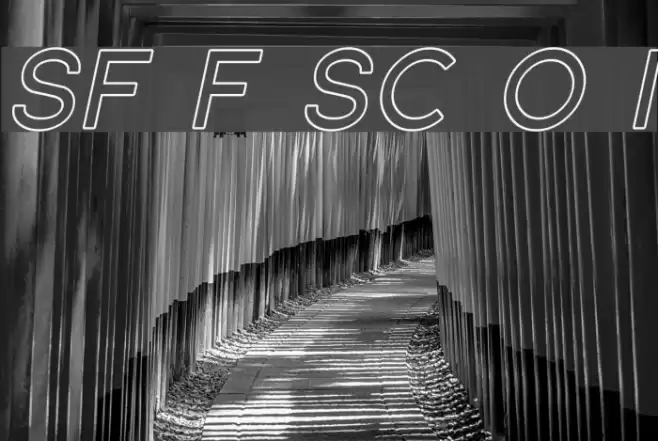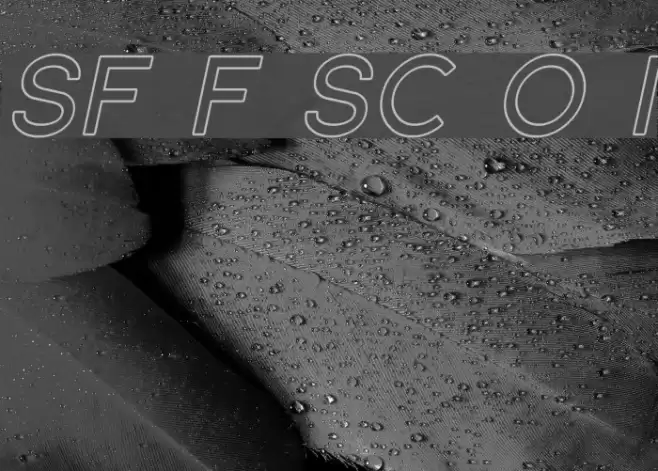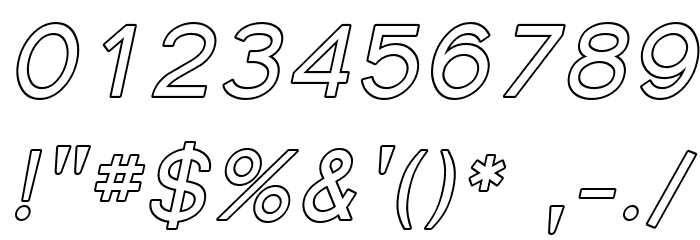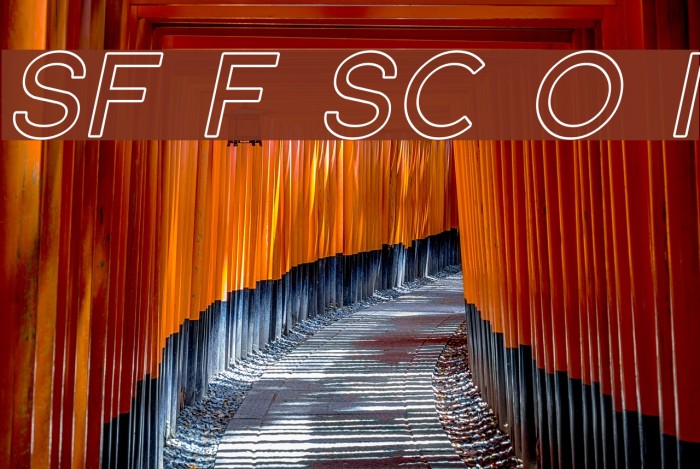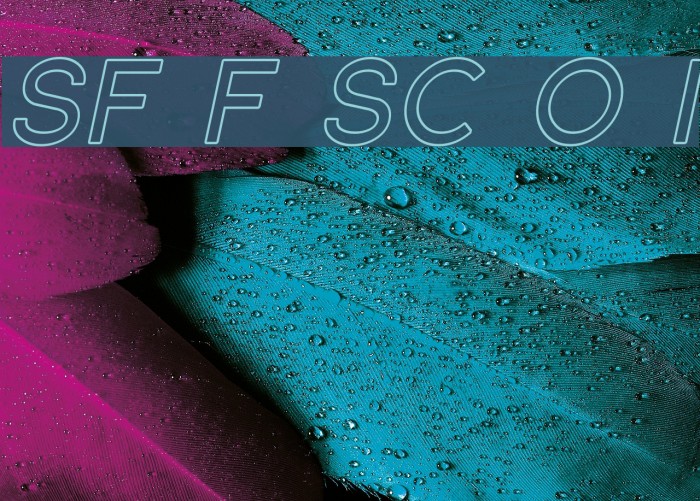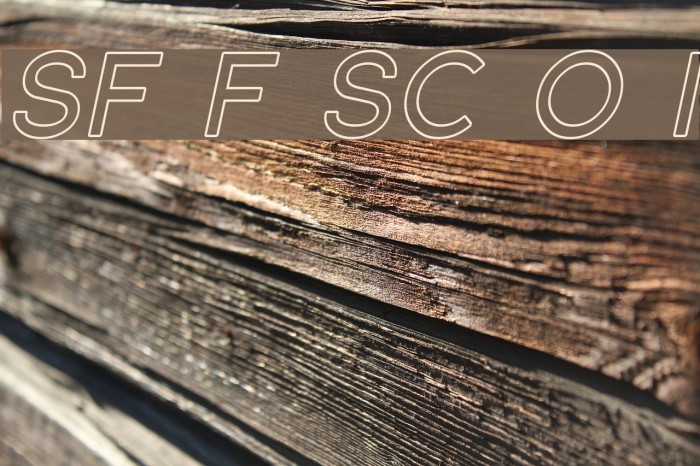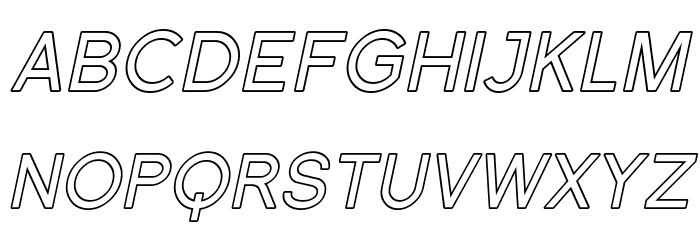
SF Florencesans SC Outline Italic
This font features a clean, modern sans-serif style with an outline design, giving it a distinctive and airy appearance. The italicized form adds a dynamic and forward-leaning character to the text, enhancing its contemporary feel. The uppercase and lowercase letters maintain a consistent geometric structure, ensuring readability while providing a sleek and stylish look. The numerals and special characters are designed to match the overall aesthetic, making them suitable for various design applications. The font's outline nature allows for creative layering and color usage, making it versatile for both digital and print media.
A modern, italicized sans-serif outline font with a sleek and dynamic appearance.
- Proposed Projects: Ideal for branding, headlines, posters, and digital media where a modern and stylish look is desired.
- Use Case: Headlines, Logos, Posters